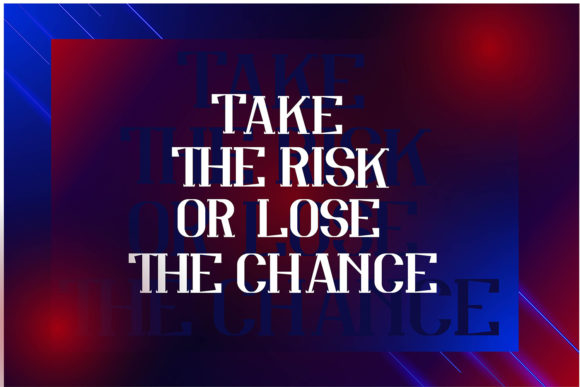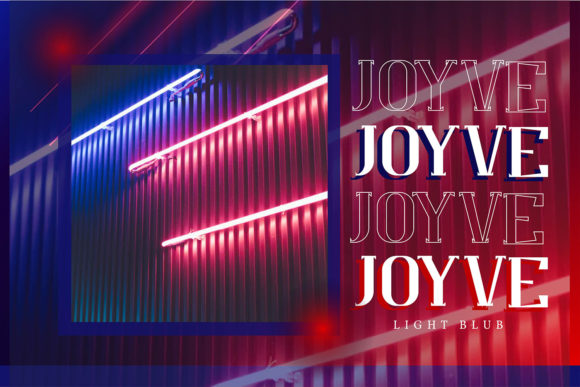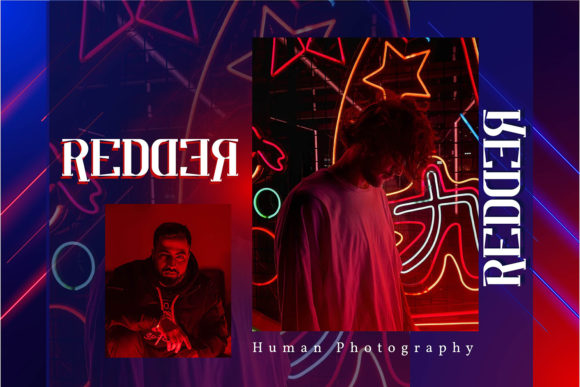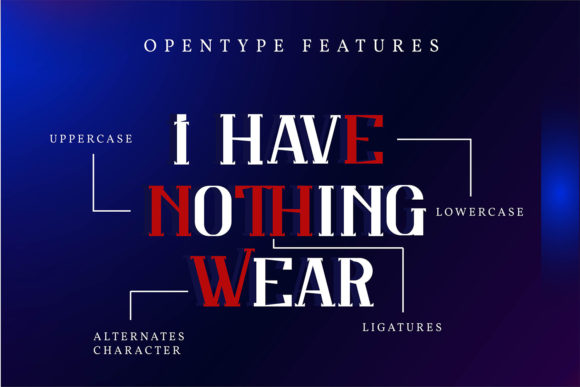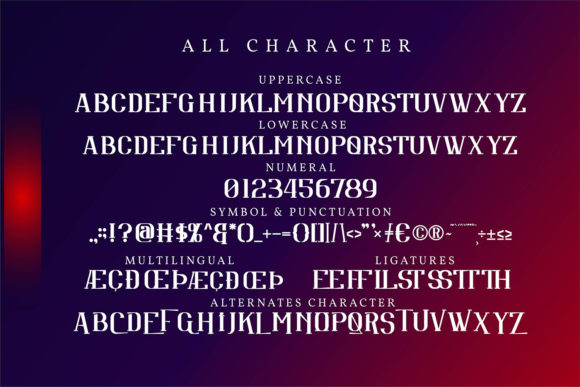
Introduction to Rovent Font
Have you ever stared at a blank page, waiting for inspiration to strike? That’s where the perfect font can be the spark that sets your creative project ablaze. As a designer, you know the value of having the right design resource at your fingertips.
That’s why we’re excited to introduce you to the Rovent Font, a high-quality display font that’s sure to elevate your designs. With its assertive, trendy, and retro-styled vibe, this font is perfect for making a statement in your next creative project.
Not only does the Rovent Font offer a unique and eye-catching look, but it’s also PUA encoded, making it easy to access all the glyphs and swashes you need. Whether you’re working on a design with a transparent background or need to create a bold headline, this font is a valuable addition to your design toolkit. And the best part? It’s available for a free download, so you can get started on your next project right away.
Key Features of Rovent Font
- High-quality design resource ideal for creative projects, offering a modern and sleek aesthetic.
- Designed to be highly scalable, maintaining its crisp and clear appearance even at large font sizes (up to 1000px).
- Resolution-independent, ensuring that the font looks great on both low-resolution and high-resolution displays.
- Perfect for use in various design projects, including logos, branding materials, and digital signage, due to its versatility and high-quality design.
Honest Review: Rovent Font
As a designer, I’m always on the lookout for high-quality design resources to enhance my creative projects. Recently, I came across the Rovent Font, and I’m excited to share my honest review with you.
- ✨ Unique design style: The Rovent Font has a distinctive aesthetic that sets it apart from other fonts in its class.
- ✨ Transparent background: The font’s transparent background makes it easy to work with and allows for seamless integration with other design elements.
- ⚠️ Limited character set: The font’s character set is limited, which may make it less versatile for certain design projects.
- ⚠️ Not suitable for large-scale text: Due to its unique design style, the Rovent Font may not be the best choice for large-scale text or body copy.
Overall, I think the Rovent Font is a solid addition to any designer’s toolkit. Its unique design style and transparent background make it a valuable resource for creative projects. While it may have some limitations, I believe it’s worth considering for your next design project.
Tips for Getting the Most Out of Rovent Font
To get the most out of the Rovent Font, try using it in combination with other design elements, such as graphics and images. You can also experiment with different font sizes and styles to create a unique and eye-catching design.
The Rovent Font is a versatile design resource that can be used in a variety of creative projects, including brochures, flyers, business cards, and more. It’s perfect for designers who want to add a touch of elegance and sophistication to their designs.